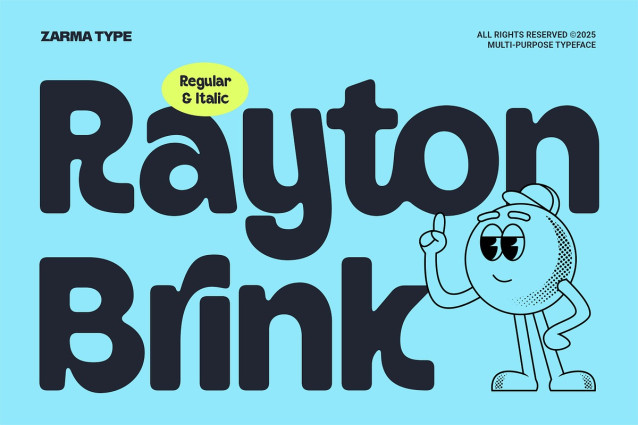
Rayton Brink Font
Rayton Brink Font is a friendly rounded font designed to infuse your brand identity with joy, clarity, and approachability. With its smooth, thick curves and playful presence, this typeface brings a sense of warmth and creativity to every visual. Whether you’re crafting a bold homepage headline, a product label, or a vibrant display, Rayton Brink delivers consistency without sacrificing character. Each letter feels intentional, creating a strong, personable voice that feels both modern and nostalgic.
Inspired by bubbly aesthetics and childlike wonder, Rayton Brink works seamlessly across different branding assets, especially those targeting lifestyle, food, tech, and kids markets. Its clean geometry and rounded terminals ensure legibility, while its lively energy invites connection. This is the font you use when you want your brand to say, “we’re fun, but we mean business.”